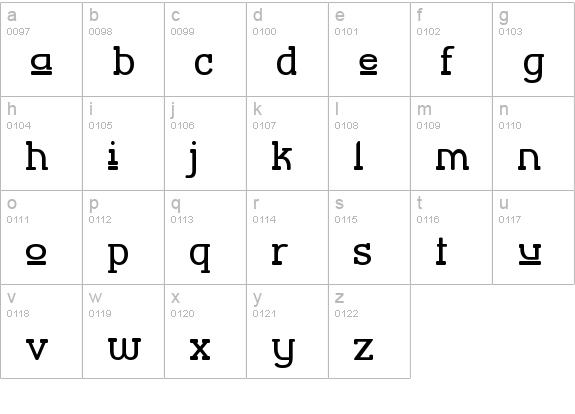
Street Corner Slab Upper Font Details
Street Corner Slab Upper font is a modern and stylish typeface that exudes a sense of urban sophistication. With its bold and angular letterforms, this font is perfect for creating eye-catching headlines, titles, and logos. The strong slab serifs give it a robust and impactful look, making it ideal for projects that require a strong visual presence. What's even better is that Street Corner Slab Upper font is available for free download at FontsMarket.com. Whether you're a designer looking to add a contemporary edge to your work or a creative looking to make a statement, this font is sure to elevate your projects with its unique aesthetic. Don't miss out on this opportunity to enhance your designs with the bold and captivating Street Corner Slab Upper font - download it now for free!